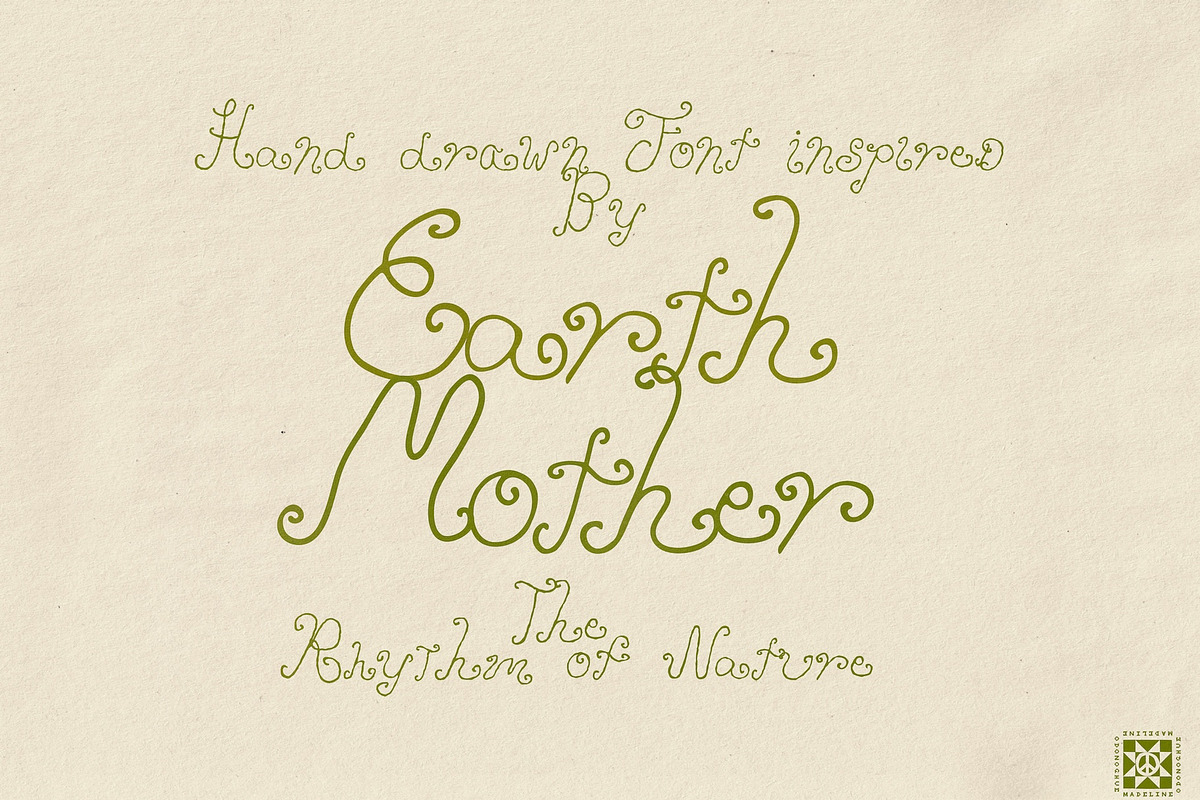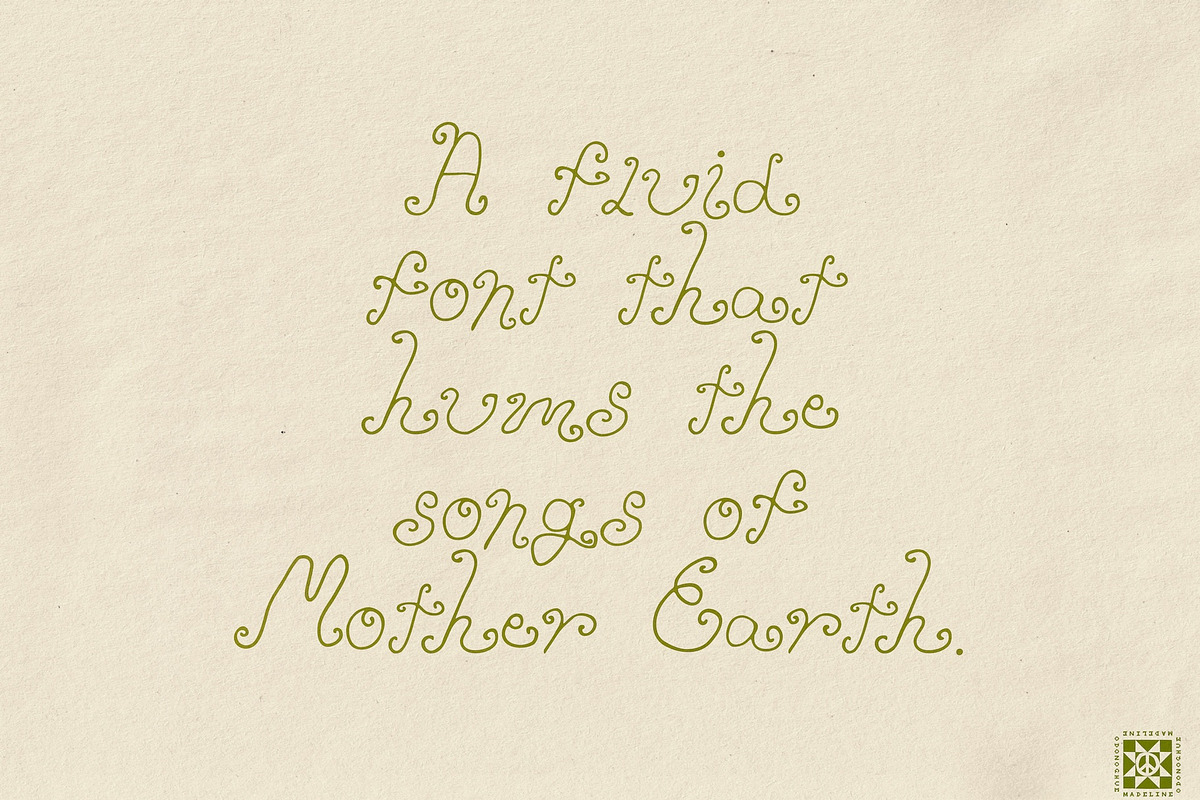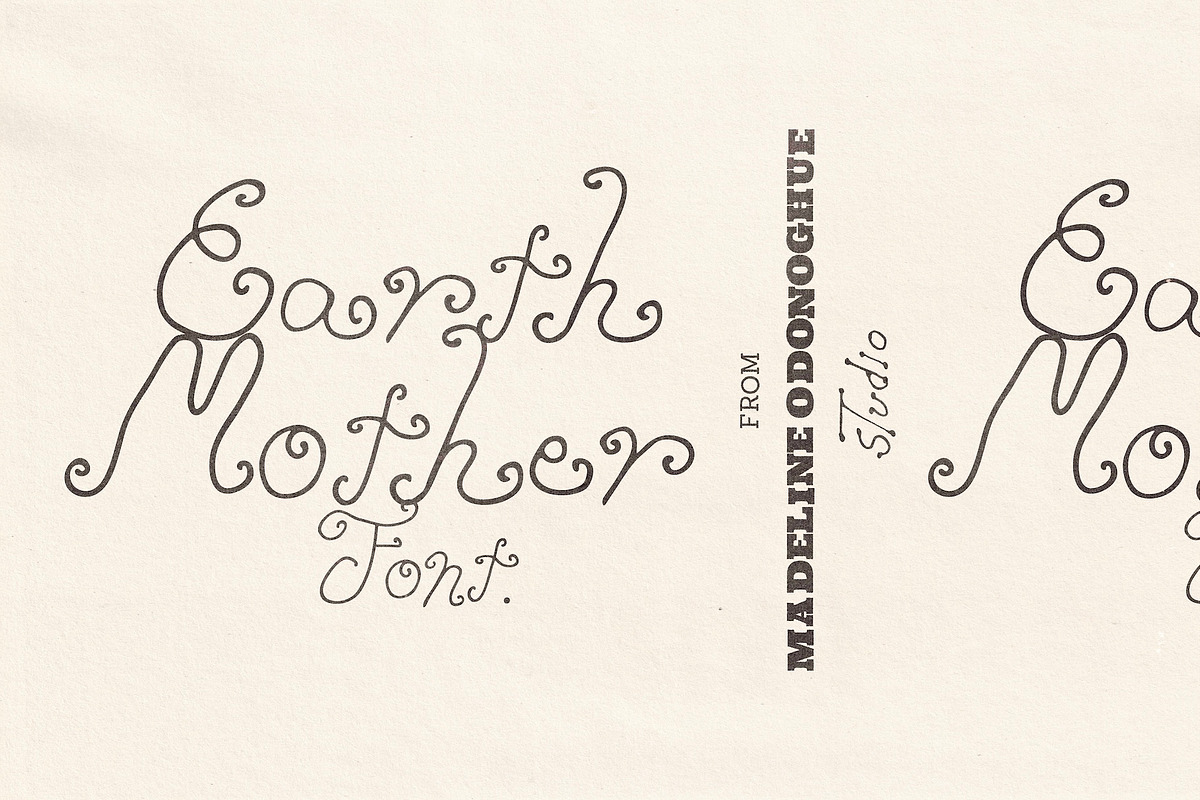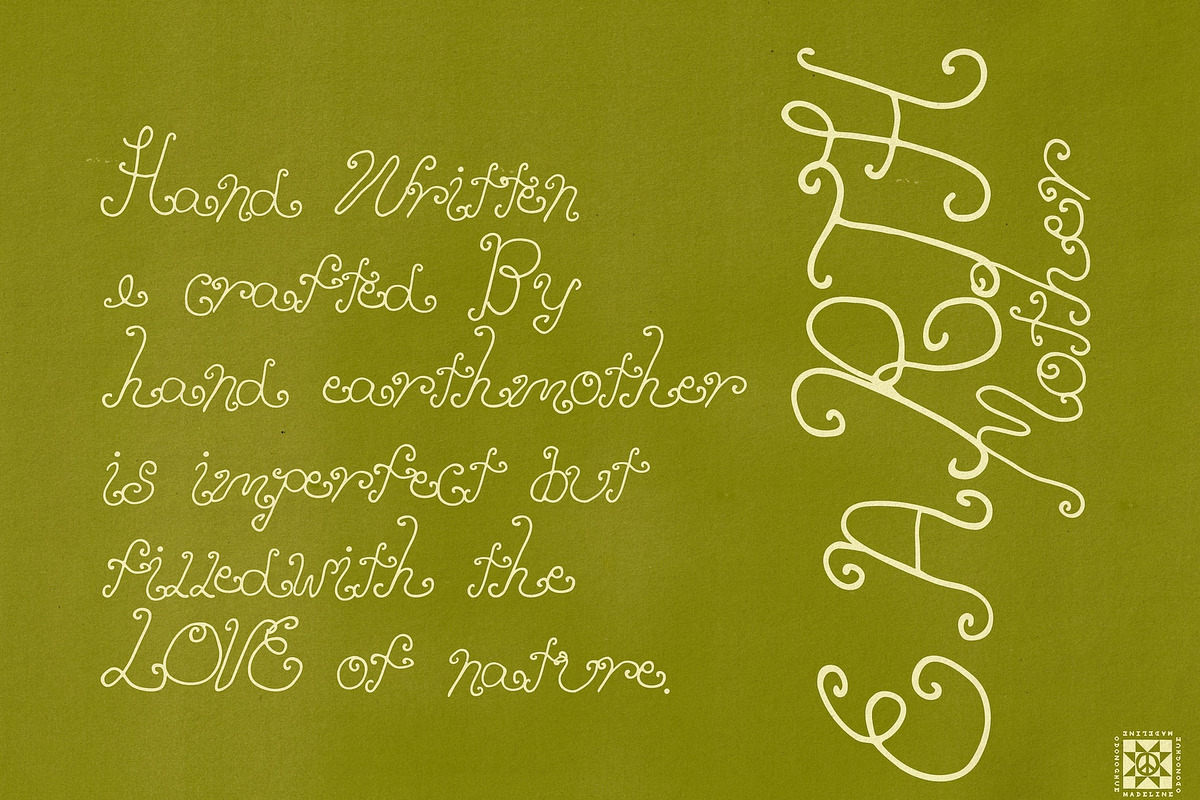
Earth Mother Hand Drawn Font
Earth Mother is a hand-drawn, organic display font inspired by vintage hippie culture, 60s–70s music posters, and the raw beauty of nature.
Influenced by old concert flyers, hand-painted signage, and free-spirited typography, this font embraces irregularity, movement, and imperfect line work. Think bees drifting through wildflower fields, ocean waves rolling in, and overgrown gardens — all translated into expressive, flowing letterforms.
Whimsical yet grounded, romantic yet bold — Earth Mother brings a soulful, handmade energy to your designs.
Hand-drawn, imperfect letterforms for an authentic, organic feel
Inspired by vintage music posters & retro hippie typography
Designed for creative play — adjust spacing, overlap letters, and create unique compositions
Includes alternates for more expressive, custom typography
Perfect balance of nostalgic and modern design
Design Notes Earth Mother is built for experimentation. Play with tight letter spacing, layering, and overlap to create natural rhythm and movement — like vines growing or waves folding into each other.
Each letter carries subtle variation, giving your work a handcrafted, one-of-a-kind feel.